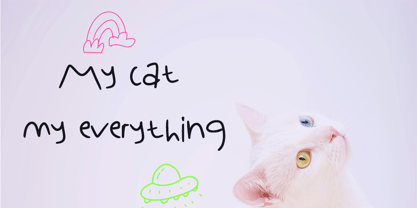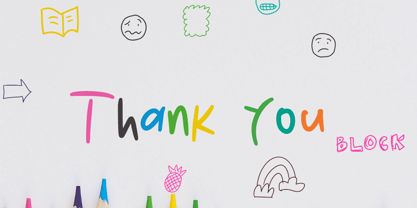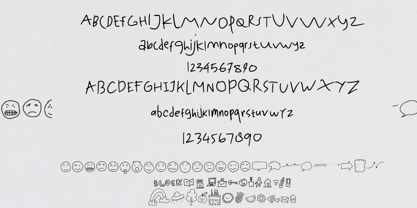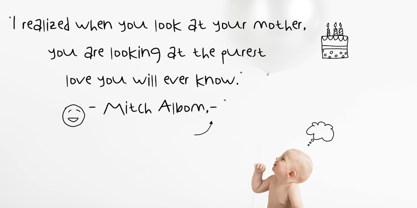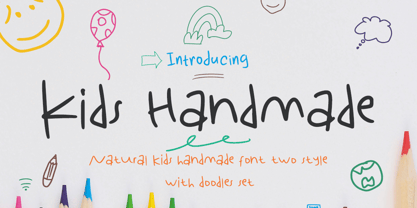
Kids handmade
by Cocodesign
The Kids handmade Font Family was designed by Muhammad Zaini and published by Cocodesign. Kids handmade contains 3 styles and family package options.
Delve into the enchanting world of infancy with the whimsical 'Kids Handmade Font Set Doodle.' This font brilliantly mirrors the unique artistry found in a child's handwriting, making it perfect for endeavors that demand a hint of heartwarming persona. Relish the joy of encapsulating the playful spirit of children's penmanship and imbue an authentic, folksy charm to your artistry. Employ it to give your work a distinctive allure, rendering your creations both one-of-a-kind and engaging. Embellish your creative ventures with the 'Kids Handmade Font', where allure, sentimentality, and simplicity echo through every stroke and arc.
Designers: Muhammad Zaini
Publisher: Cocodesign
Foundry: Cocodesign
Design Owner: Cocodesign